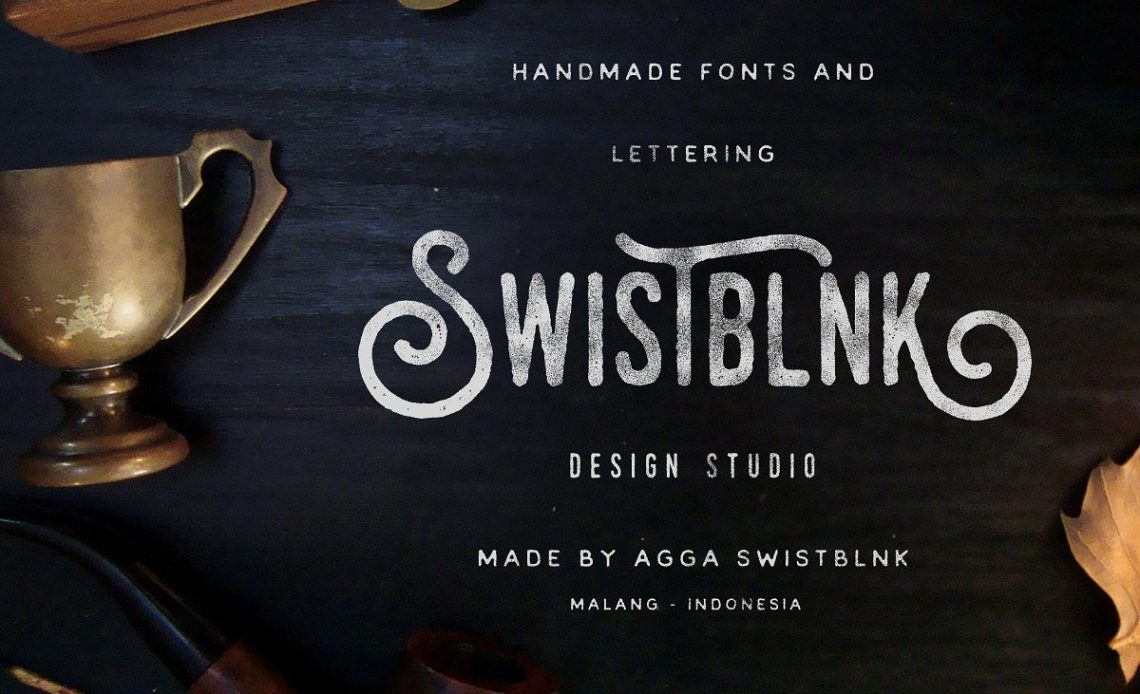
Looking for the best font to elevate your boat lettering game? Look no further than Monthoers Signature - Font Duo, created by the talented Angga Suwista. This font family features a modern vintage textured display typeface, combining classic typography with a modern handlettering style, perfect for creating a classic and stylish look.
Not only is Monthoers Signature - Font Duo a top 100 product from 2015-2016, but it has also just been updated to Monthoers 3.0, including uppercase, lowercase, numerals & punctuations, and accents with multilingual characters. With six different weights to choose from, including clean, rough, and vintage options, you can easily find the perfect combination to suit your project needs.
This font family features over 197 glyphs, including stylistic sets, ligatures, and contextual alternates, allowing you to mix and match pairs of letters to fit your design. And with OpenType features, you can access stylistic alternates and contextual alternates in some characters.